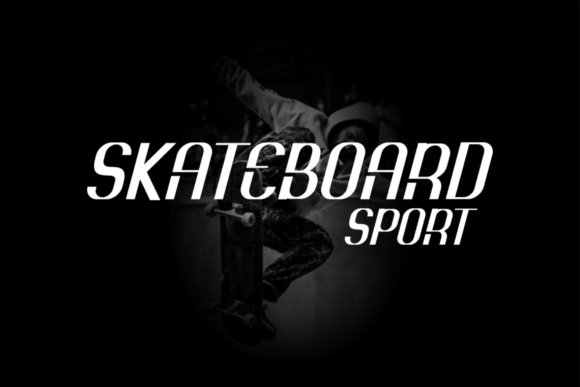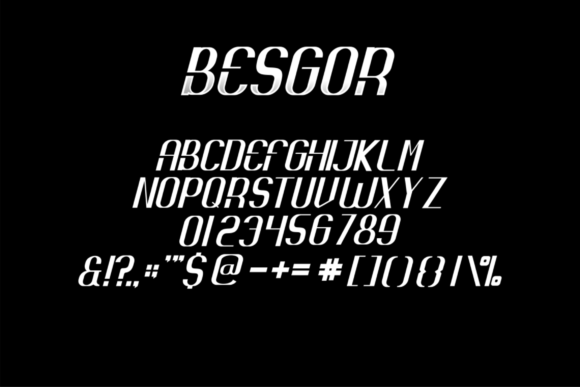
Introducing Besgor Font: The Ultimate Display Font for Bold Branding
In the world of typography, a font can make or break a brand’s identity. A well-crafted font can elevate a brand’s visual appeal, convey its personality, and leave a lasting impression on its audience. If you’re a designer, craftsperson, or entrepreneur looking for a bold and authentic display font to take your branding to the next level, look no further than Besgor Font.
What is Besgor Font?
Besgor Font is a stunning display font designed to make a statement. Its bold and authentic style makes it perfect for a wide range of branding projects, from logos and t-shirt printing to export and more. With its unique character and versatility, Besgor Font is sure to grab attention and leave a lasting impression.
Key Features of Besgor Font
- Bold and Authentic Style: Besgor Font boasts a bold and authentic style that exudes confidence and sophistication.
- Versatility: This font is suitable for a wide range of contexts, from logos and t-shirts to export and more.
- Unique Character: Besgor Font has a distinct personality that sets it apart from other fonts.
- Ease of Use: This font is easy to read and works well in various design applications.
Why Choose Besgor Font?
With so many fonts available, why choose Besgor Font? Here are just a few reasons:
- Stand Out from the Crowd: Besgor Font’s bold and authentic style ensures that your brand stands out from the competition.
- Flexibility: This font can be used in various design applications, from digital to print.
- Time-Saving: With Besgor Font, you can create stunning designs in no time, saving you valuable time and effort.
- Professional Results: This font is designed to deliver professional results, making it perfect for designers and craftspersons.
How to Use Besgor Font
Using Besgor Font is easy. Here are some tips to get you started:
- Pair it with Other Fonts: Combine Besgor Font with other fonts to create a unique and visually appealing design.
- Experiment with Colors: Try out different colors to find the perfect combination that suits your brand.
- Play with Sizes: Experiment with different font sizes to create visual hierarchy and emphasis.
In conclusion, Besgor Font is an exceptional display font that can elevate your branding to new heights. Its bold and authentic style, versatility, and unique character make it perfect for designers, craftspersons, and entrepreneurs looking to make a statement. With its ease of use and professional results, Besgor Font is sure to become a staple in your design toolkit.